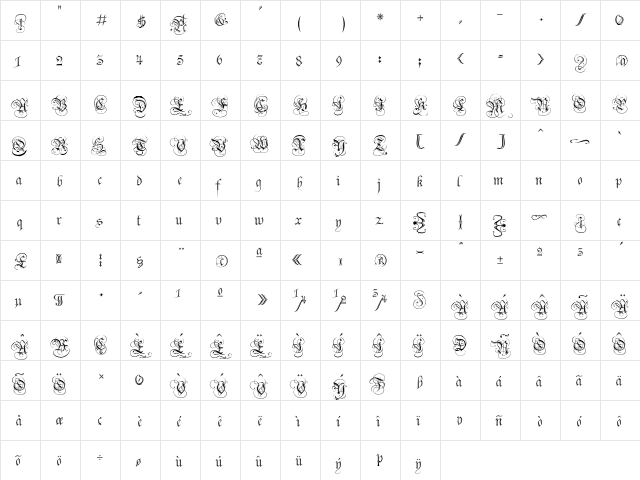
Carol Etched Regular
Design Context for Carol Etched Typeface
Carol Etched is a composed and adaptable typeface that performs quietly and consistently across a wide range of design contexts.